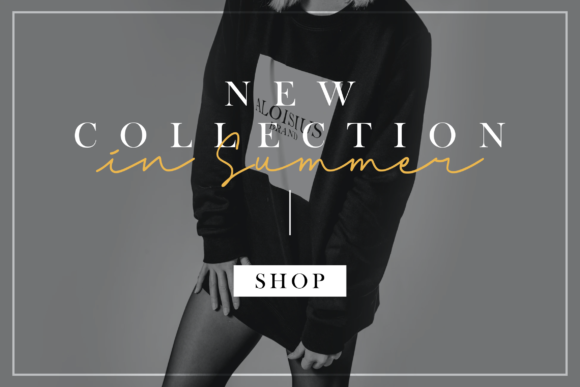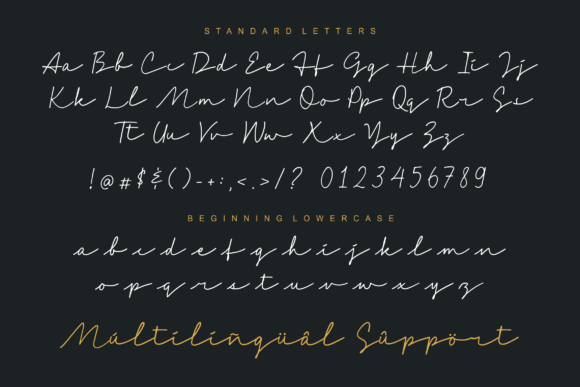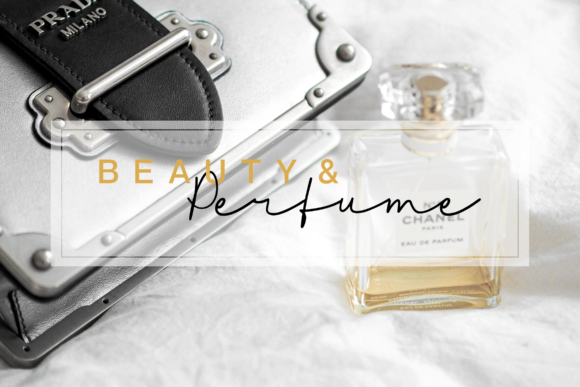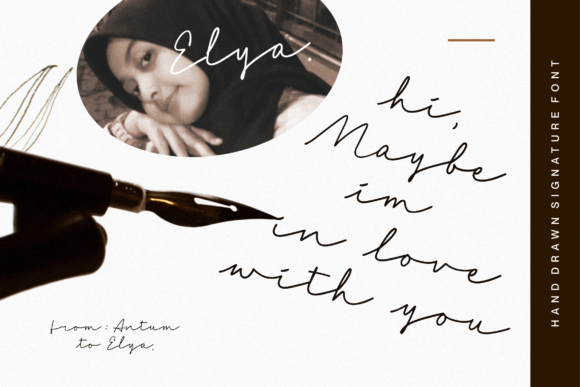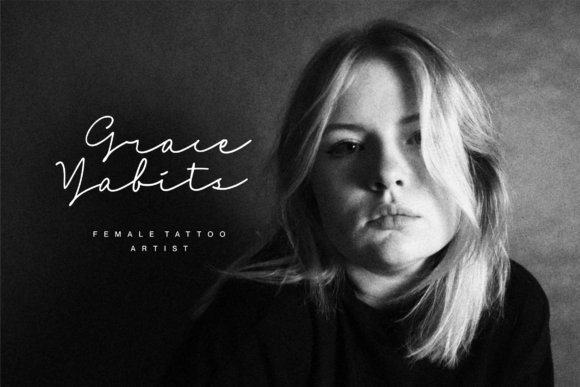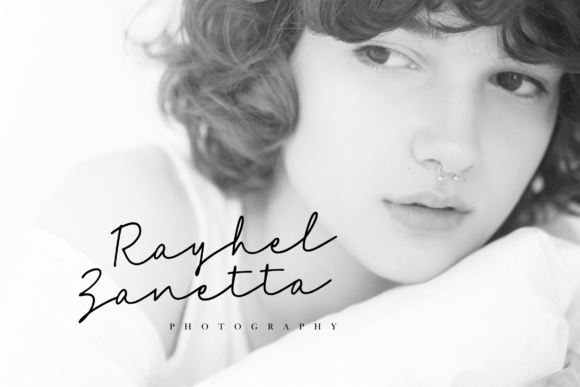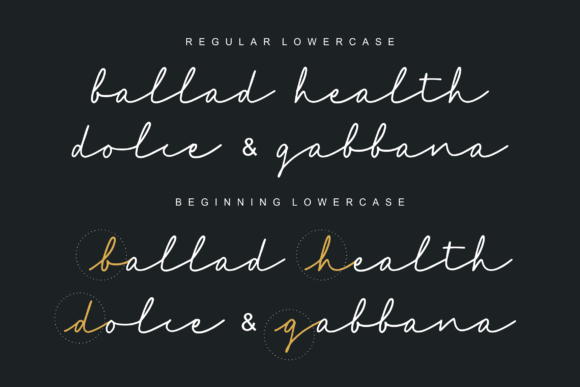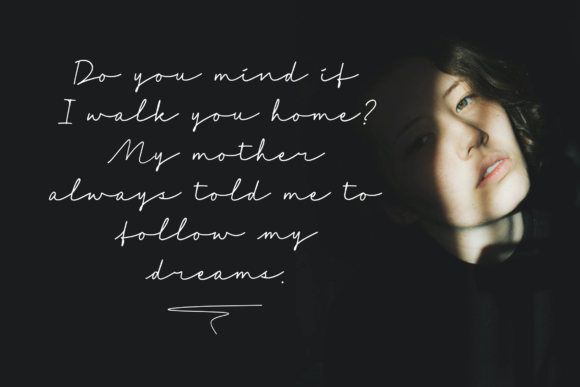
The Goblick Font
About The Goblick Font
The Goblick is a stylish and elegant script font. It works marvelously on letters, invitations or pretty much anything that requires a delicate touch.